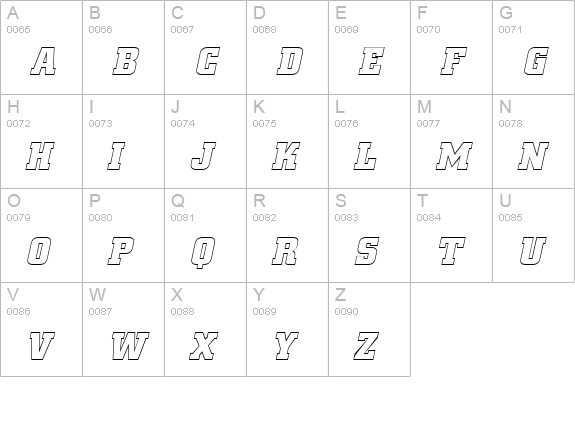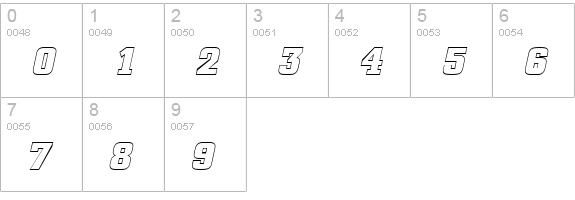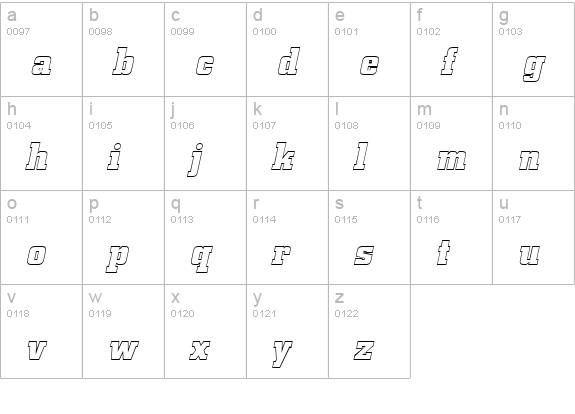
BorghsHollow Italic is a distinctive, italic variant in the BorghsHollow typeface family \xE2\x80\x94 well suited to design and typography projects.
BorghsHollow Italic is a stunning and elegant font that exudes sophistication and charm. Its unique design features intricate details and a sense of fluidity that make it perfect for adding a touch of luxury to any project. The italic style adds a dynamic and modern twist to traditional serif fonts, making BorghsHollow Italic a versatile choice for a wide range of design applications. What sets BorghsHollow Italic apart is not just its beautiful aesthetics, but also the fact that it is completely free to download. That's right, you can effortlessly enhance your designs with this exquisite font at no cost! Simply head over to FontsMarket.com to access this gem and start creating with BorghsHollow Italic today. Elevate your projects with this captivating and stylish font that is sure to leave a lasting impression.